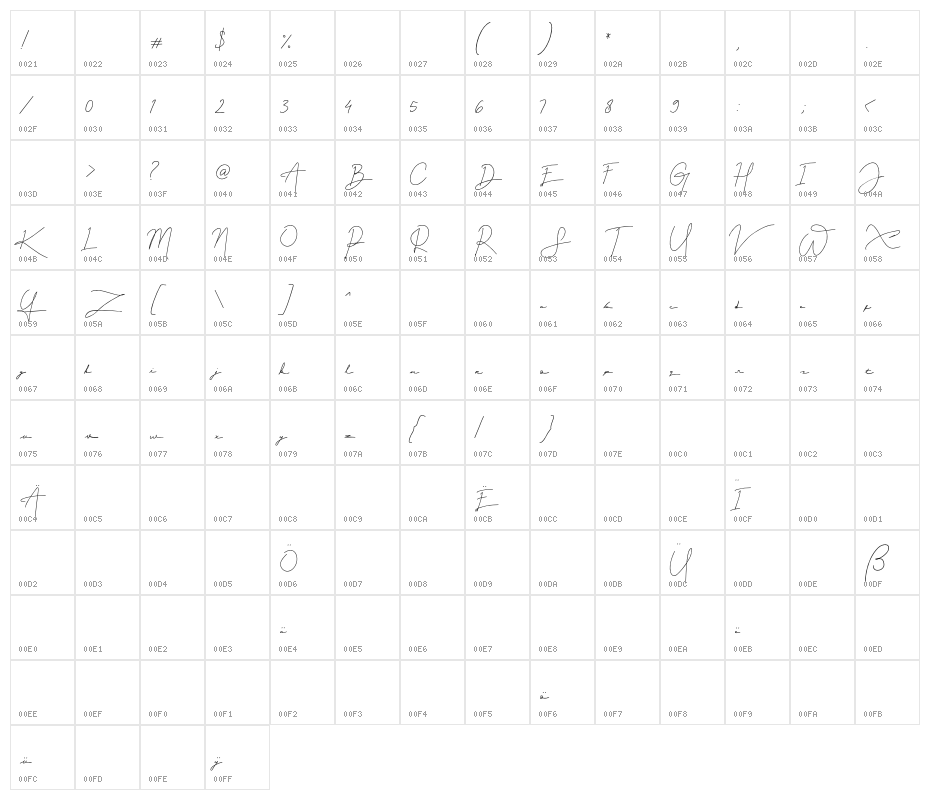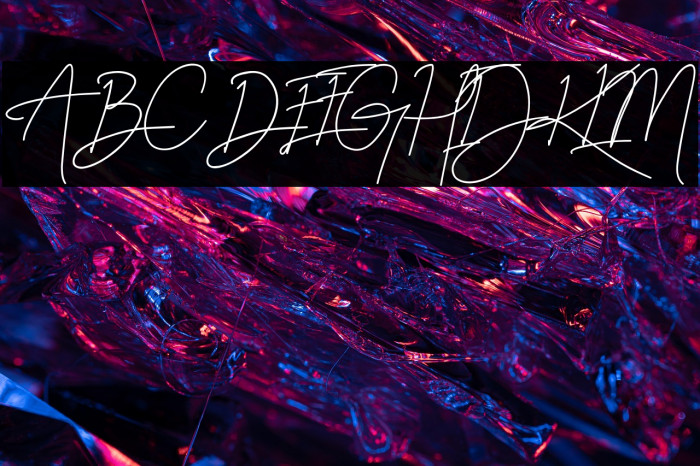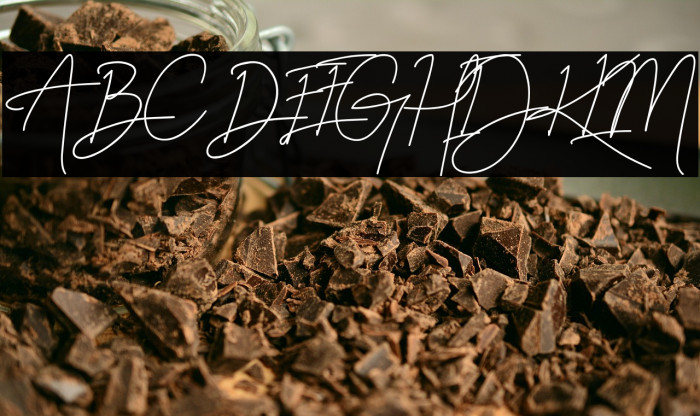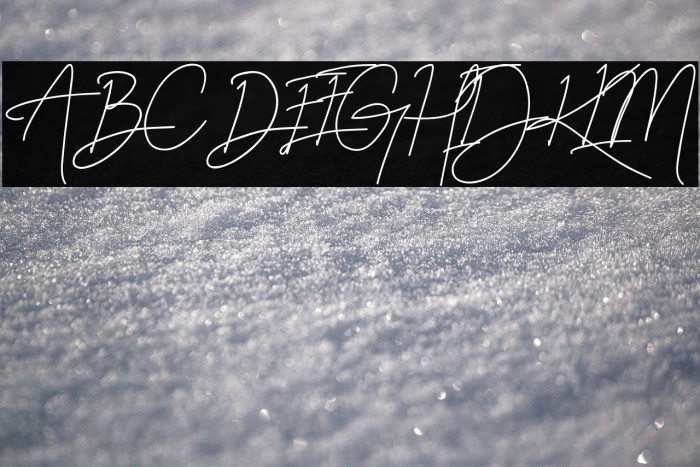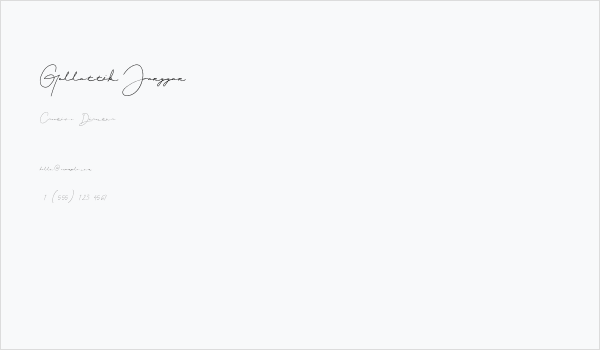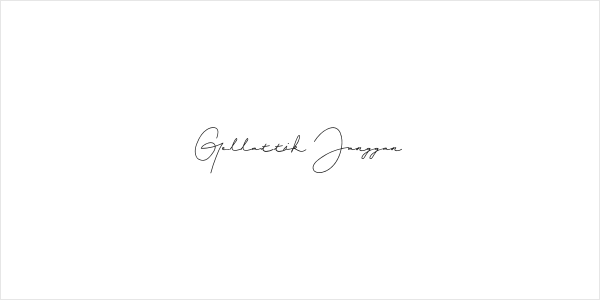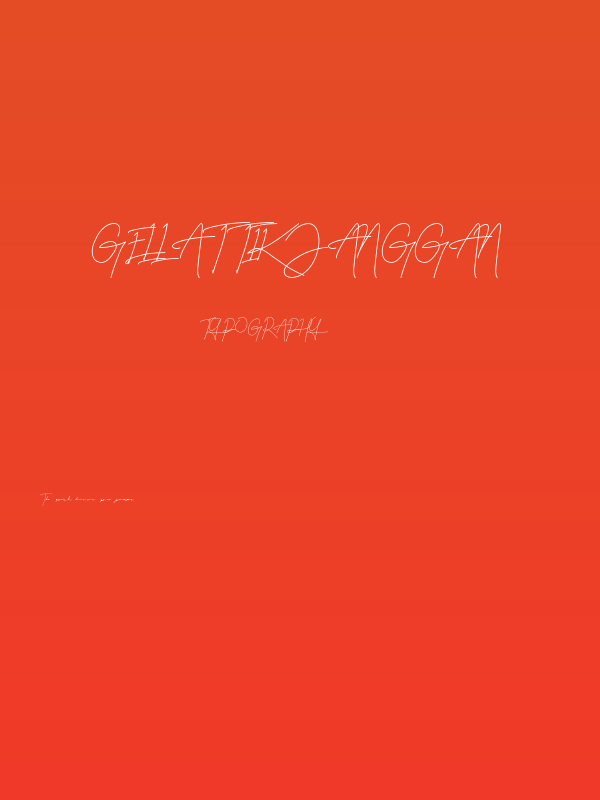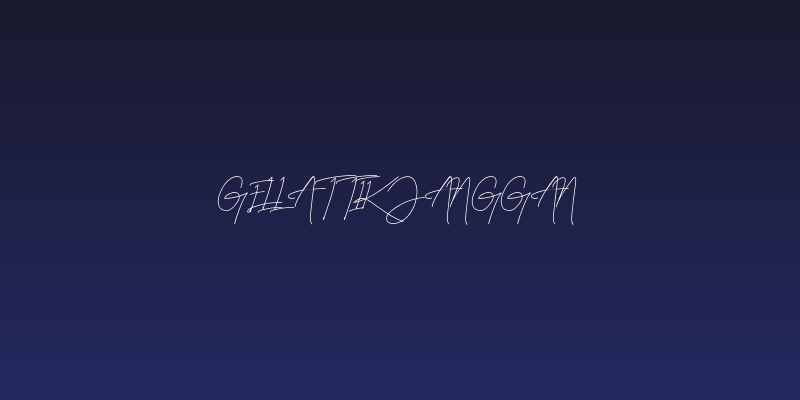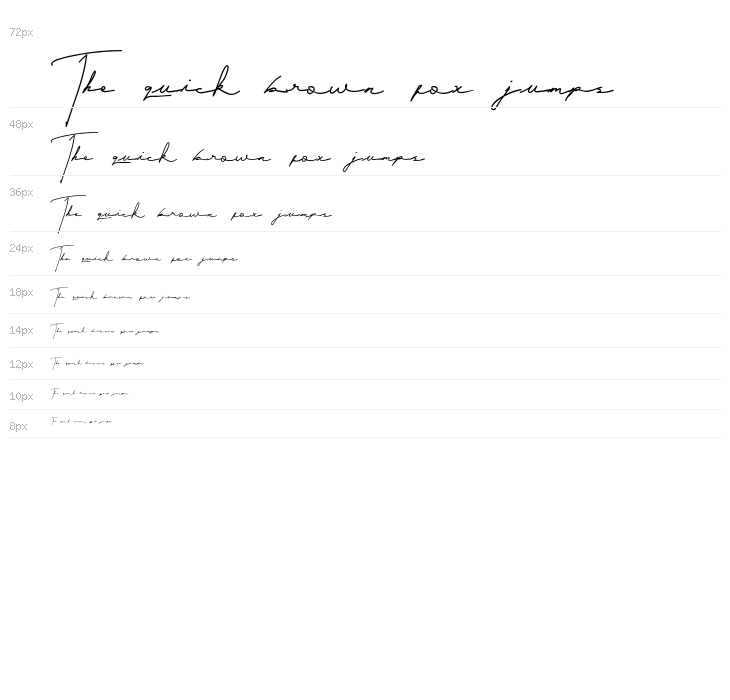
Gellattik Janggan Font
Gellattik Janggan Description
This font features a unique and artistic handwritten style, characterized by its fluid and organic strokes. The uppercase letters are bold and expressive, with a sense of movement and flair, while the lowercase letters maintain a more consistent and elegant flow. The numbers are clear and legible, complementing the overall aesthetic. Special characters are creatively integrated, adding to the font's versatility. The design exudes a sense of creativity and individuality, making it suitable for projects that require a personal touch. Its distinctive style is both modern and timeless, appealing to a wide range of design needs.
| Overall Style | Artistic and Modern |
| Use Case | Logos, Invitations, Artistic Projects |
| Proposed Projects | Ideal for wedding invitations, personal branding, artistic projects, and creative logos. |